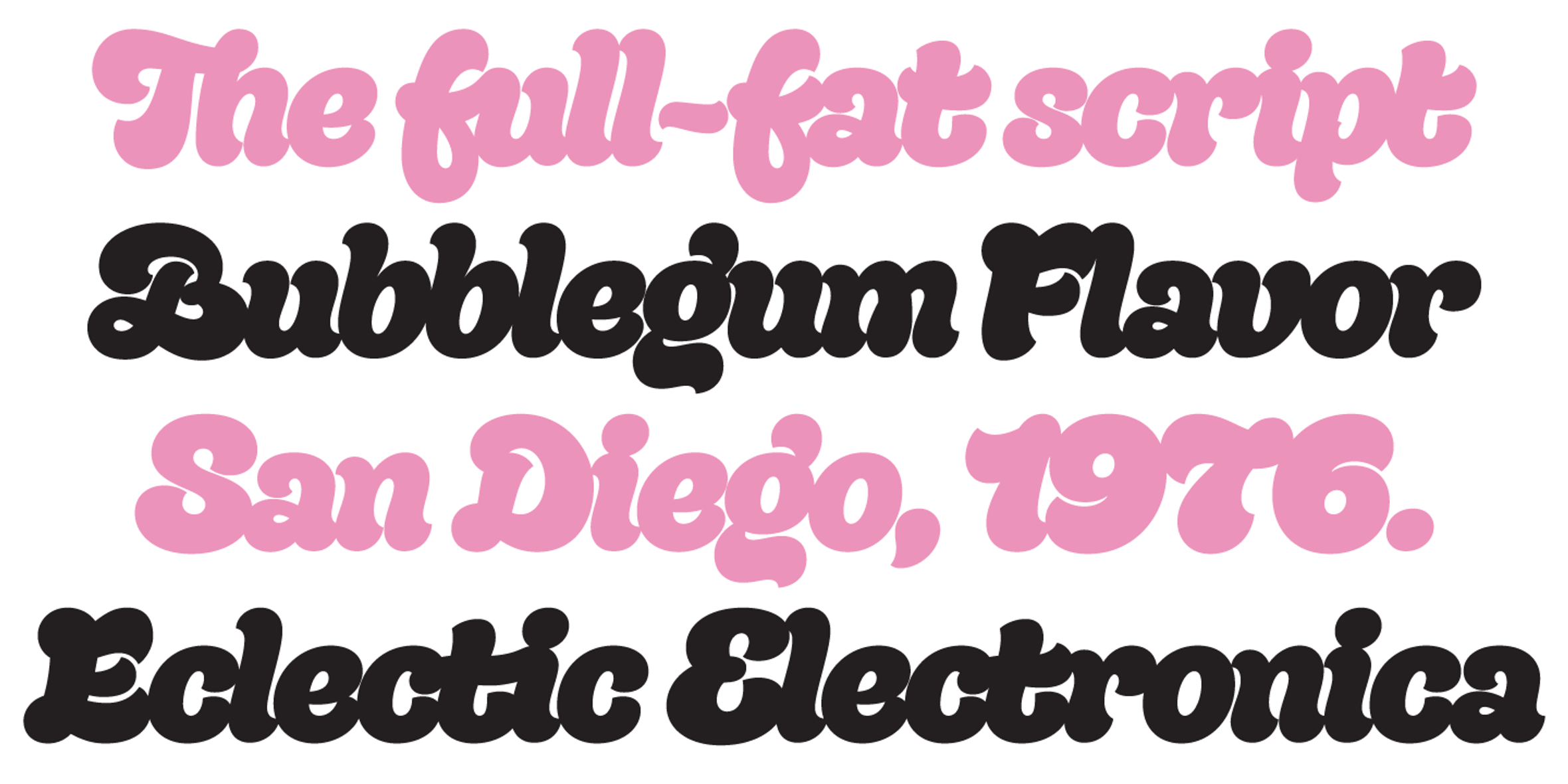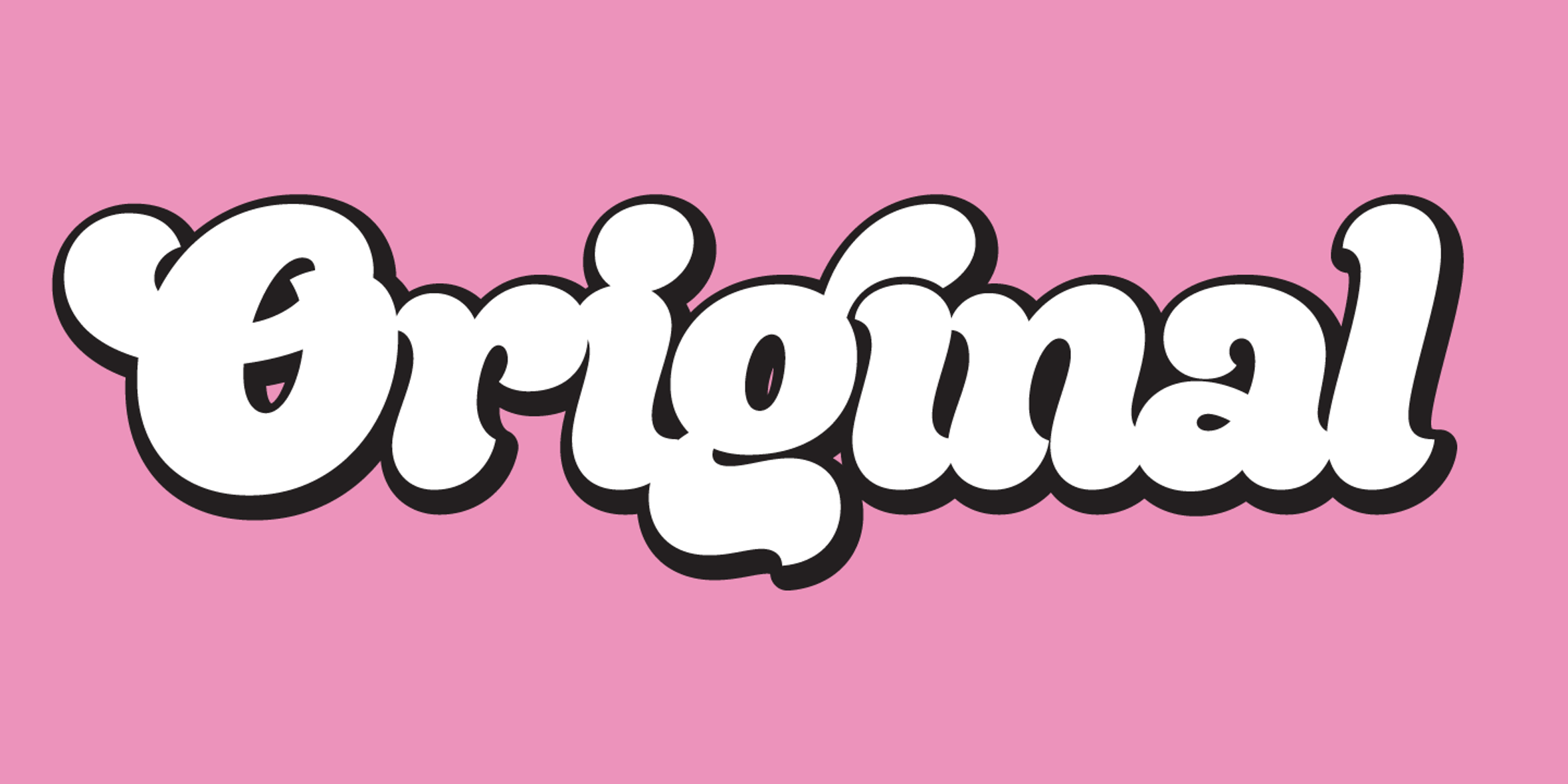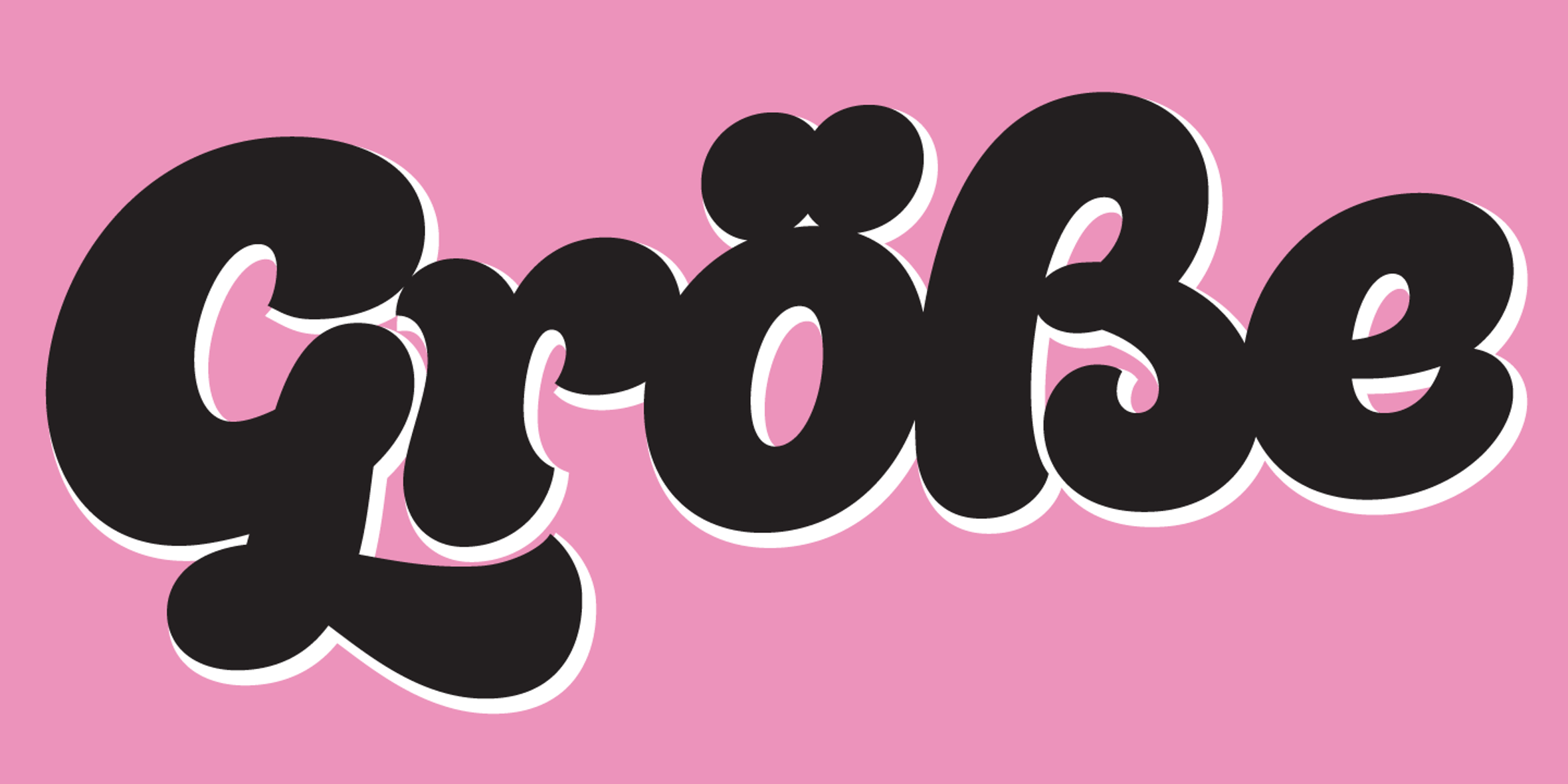
Quinella Font
Quinella
This is Quinella, plumper than a misguided Z-lister’s dodgy lip job. Named after those cheffy scoops of ice cream, quenelles. It’s a cute, voluptuous script with a seventies vibe and a personality all its own. It’s non-connecting in the usual sense, but the letters overlap to make the white space as tiny as possible. The full-fat, creamy appearance makes it perfect for food packaging, but don’t let it end there; it’ll make memorable logos, unmissable headlines, and posters with more punch.
- Common Ligatures
- Discretionary Ligatures
- Ordinal Numerals
- Swashes